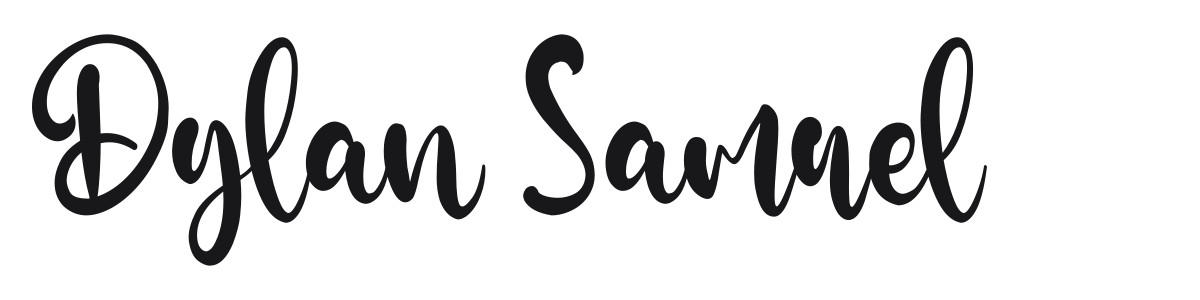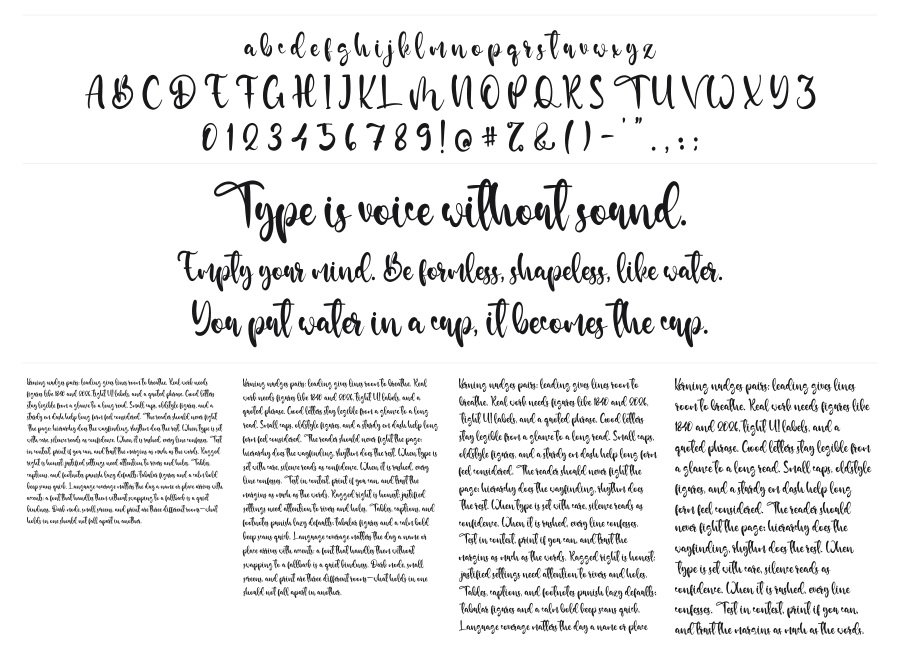
Dylan Samuel
Dylan Samuel is a bold brush script with generous stroke contrast and an expressive, bouncy rhythm drawn from hand-lettered calligraphy. Sweeping ascenders and looping connections give it a lively, informal energy that works well at large sizes. It suits branding, packaging, and editorial contexts where a handcrafted warmth is the goal.